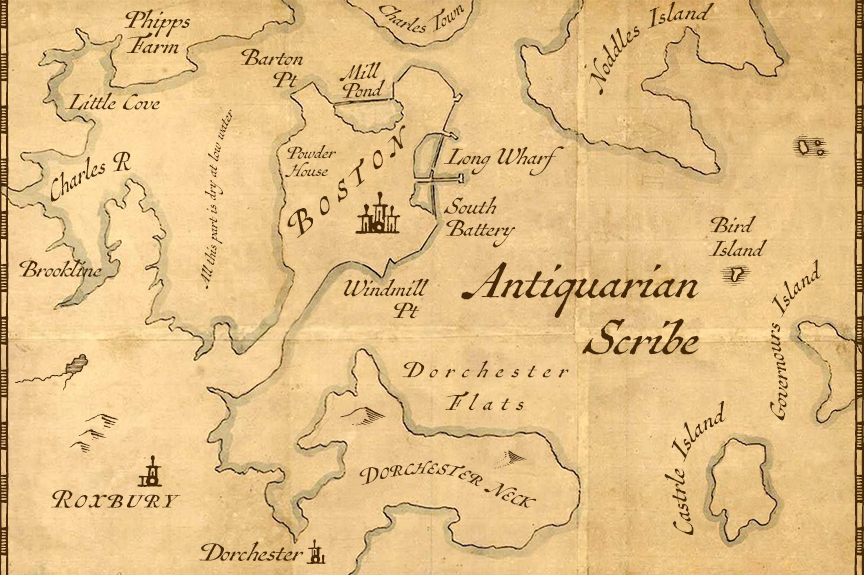
Antiquarian Scribe™
Henri Abraham Chatelain was a cartographer and publisher of the famous Atlas Historique, ou Nouvelle Introduction a L'Histoire, a world atlas released between 1705 and 1732 in Amsterdam. A few years ago, at an antique book shop in London, I bought a page from Chatelain's atlas—a page covering the Near East, India, the Indian Ocean—that had a particularly alluring, oblique handlettering style. The text is in French, which gave me plenty of samples of diacritics and accented characters. The overall effect is neat and legible, with a distinctly historical flair. Antiquarian Scribe is the first in our new "Map Fonts" series. US$39. | Order